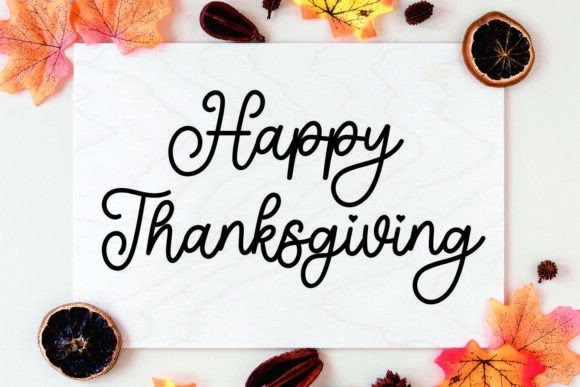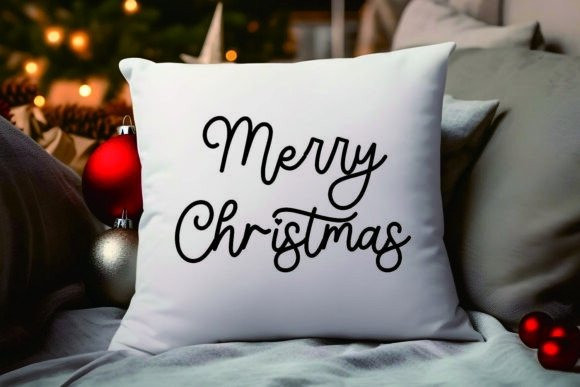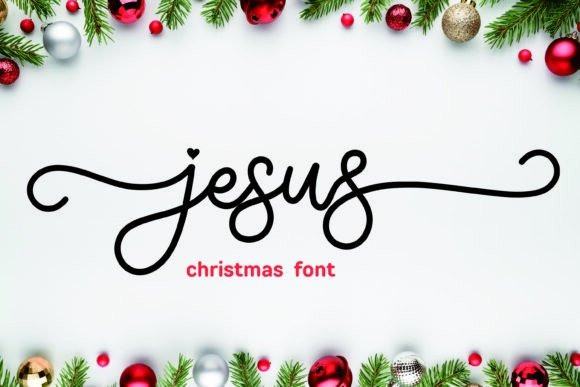
Jesus Handwriting Font
Jesus Handwriting Font – a quirky and whimsical handwritten script font with a charming monoline style, perfect for all your holiday-themed projects. Tailored for Christmas, New Year, Easter, Thanksgiving, and the cozy winter season, Jesus font brings joy and warmth to any design. With its delightful tails on both the beginning and ending swashes, each character radiates an expressive and playful touch, making it ideal for a wide range of creative ideas, from Cricut designs to SVG crafts.